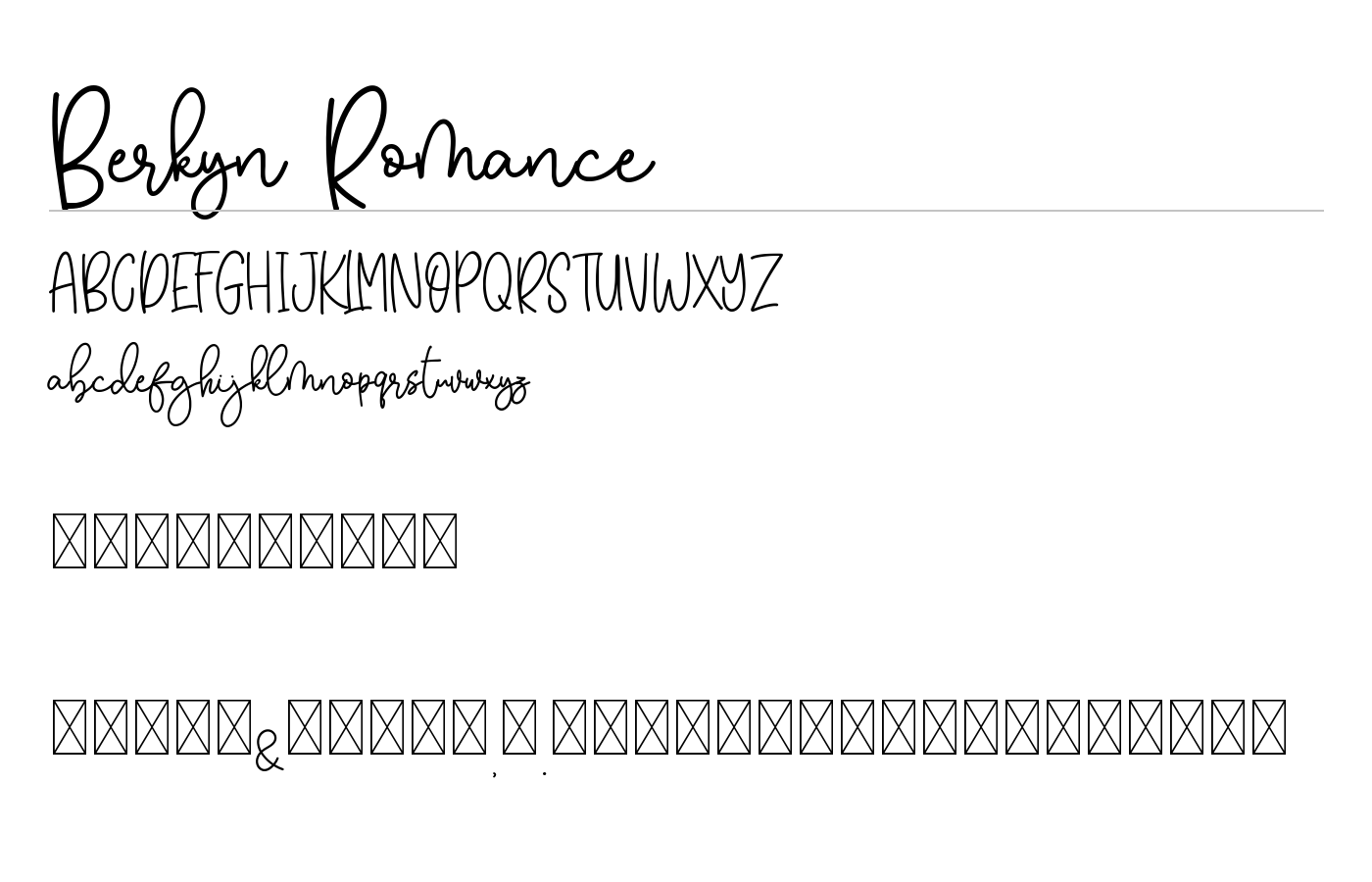
Berkyn Romance is a playful and charming handwritten script font featuring tall, slender letterforms with a casual, elegant flow. Its thin strokes and delicate curls give it a romantic and approachable feel, making it ideal for personal branding, invitations, and creative projects that seek a warm, friendly touch. This font works best in headlines or decorative uses where an intimate, handcrafted style is desired.
Berkyn Romance Font
About Berkyn Romance Font
| Font family | Berkyn Romance Font |
| Designer | M Arif Dwi Prasetyo & Eko Nurcahyo |